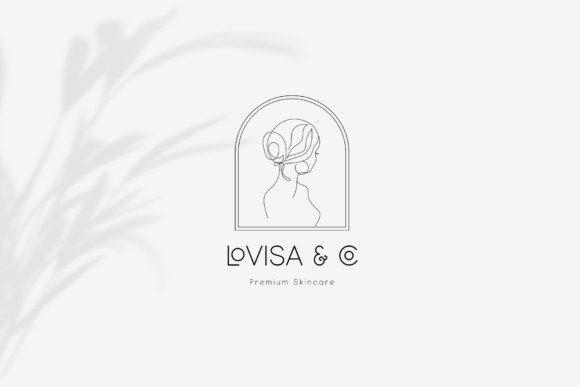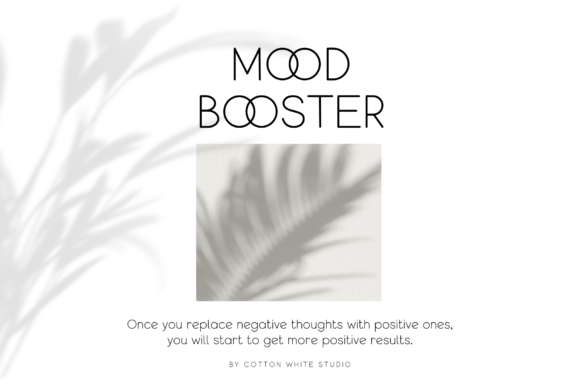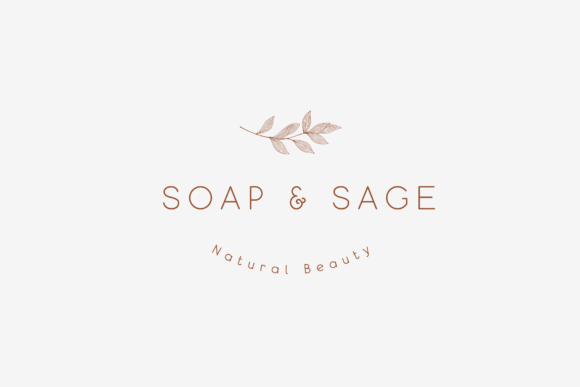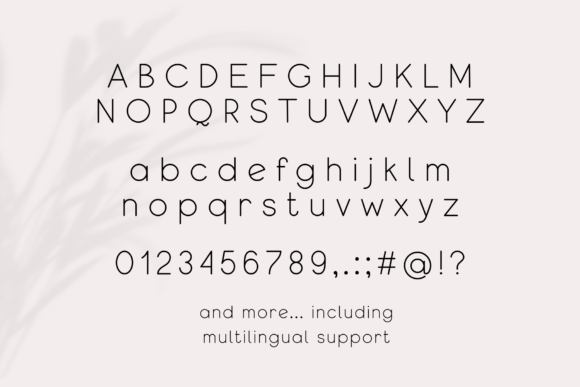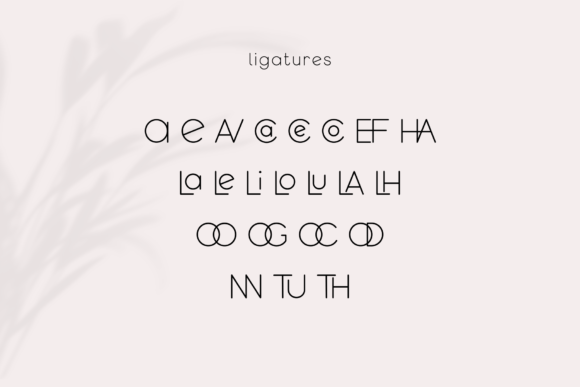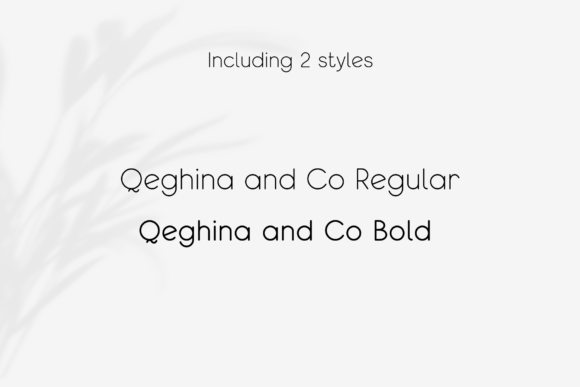
Introduction to Qeghina and Co Font
Qeghina and Co is an exclusive and distinctive sans-serif font that commands attention with its bold yet elegant appearance.
Its modern and clean lines elevate any design, from logos to headlines, and its intricate details set it apart from ordinary sans-serif fonts A must-have for designers looking to make a statement.